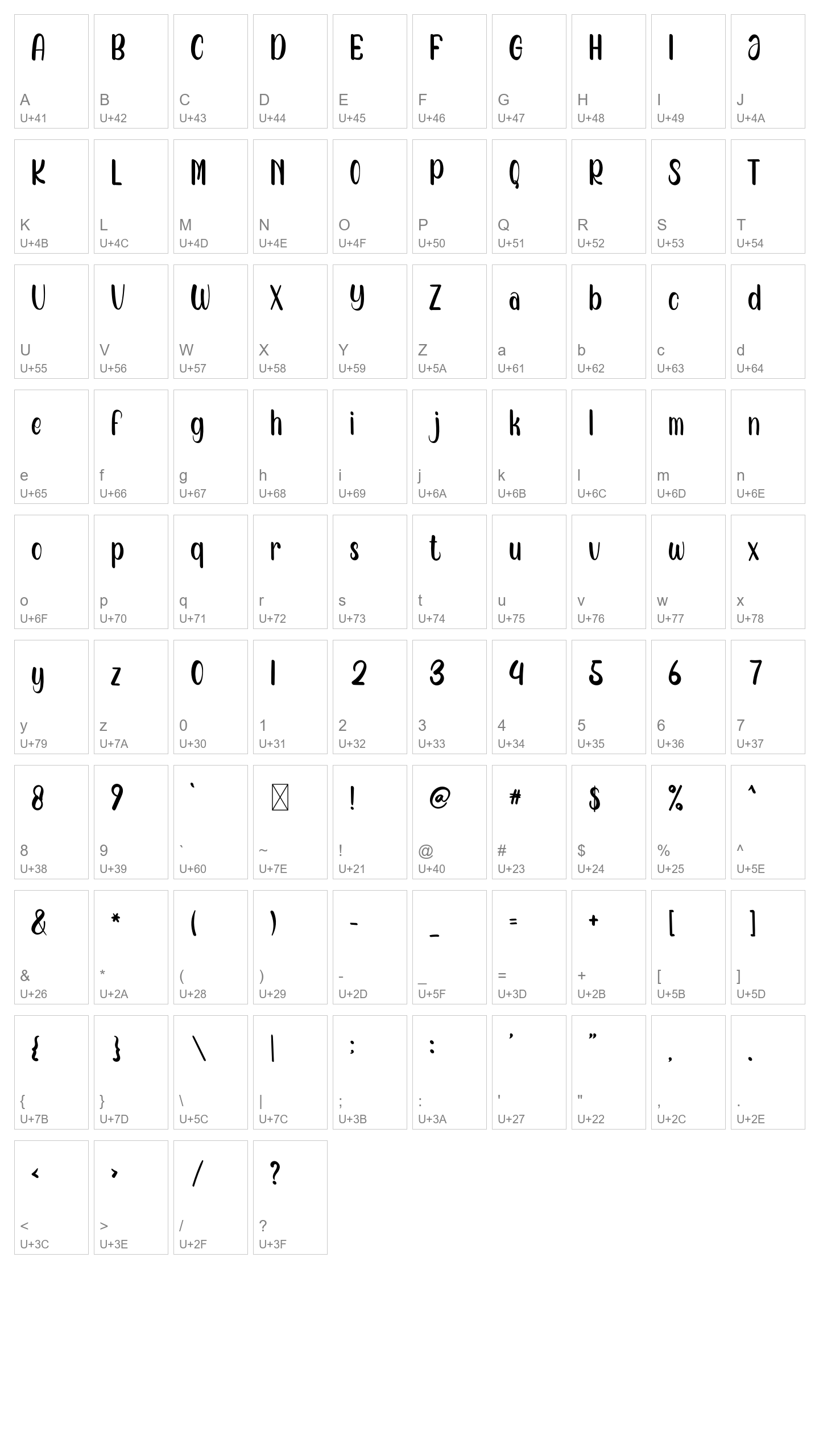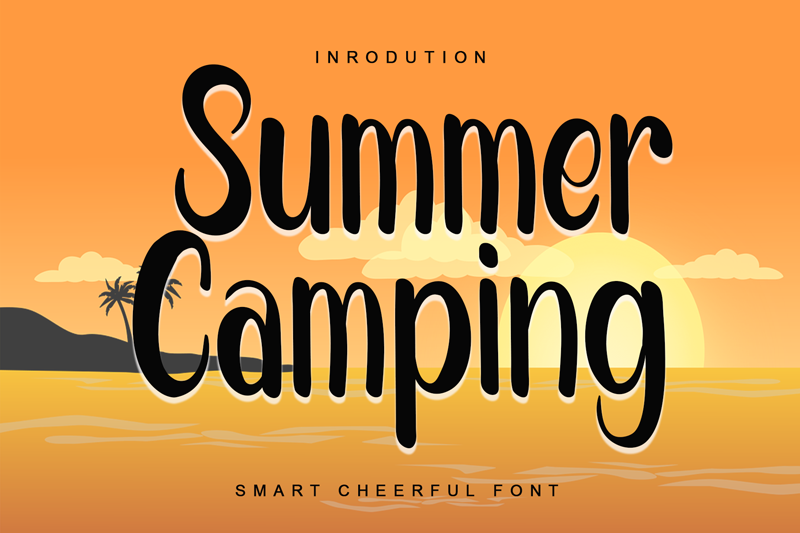
Summer Camping
This font retains a classy calligraphic influence while feeling contemporary and fresh. This versatility will attract a wide range of creative ideas, from letterheads and titles to stationery.